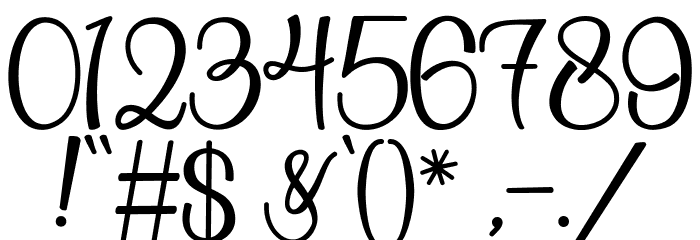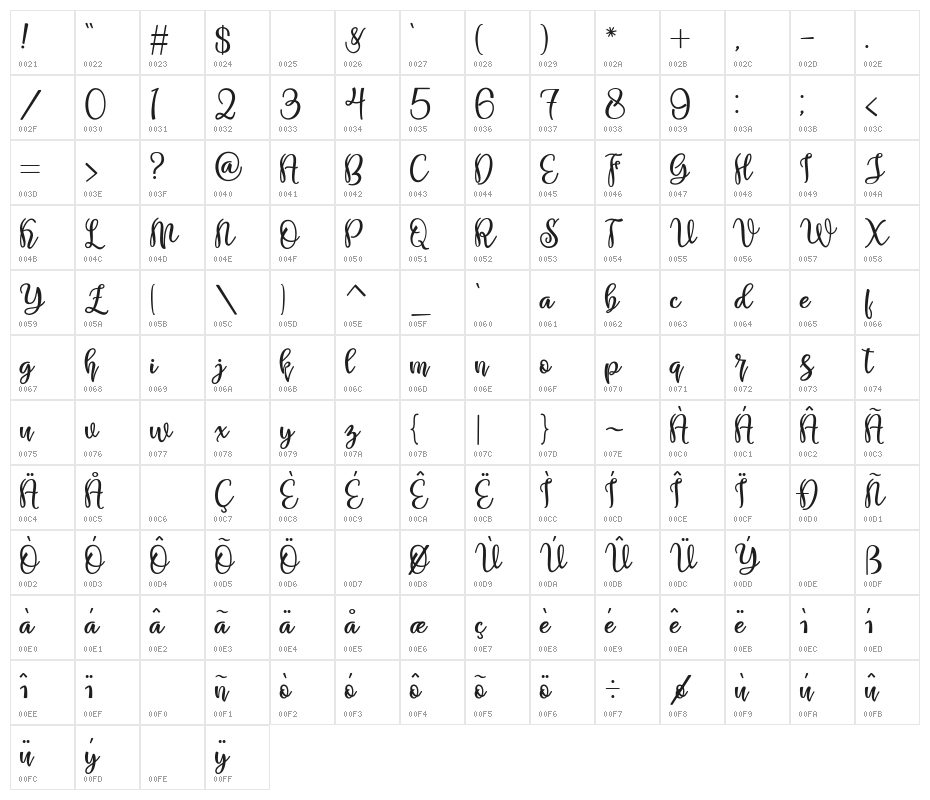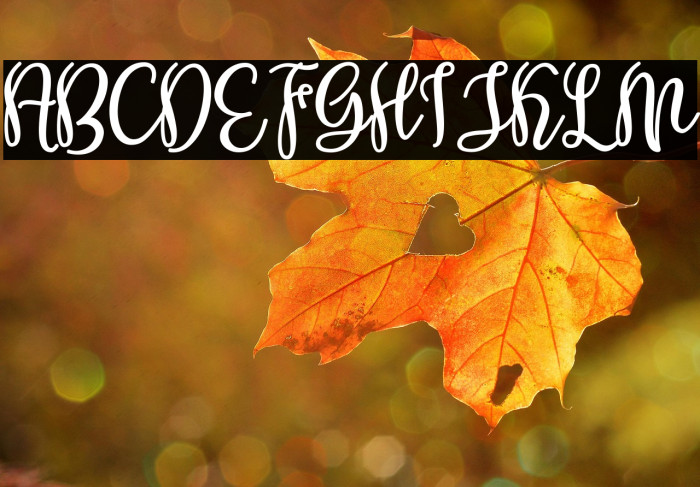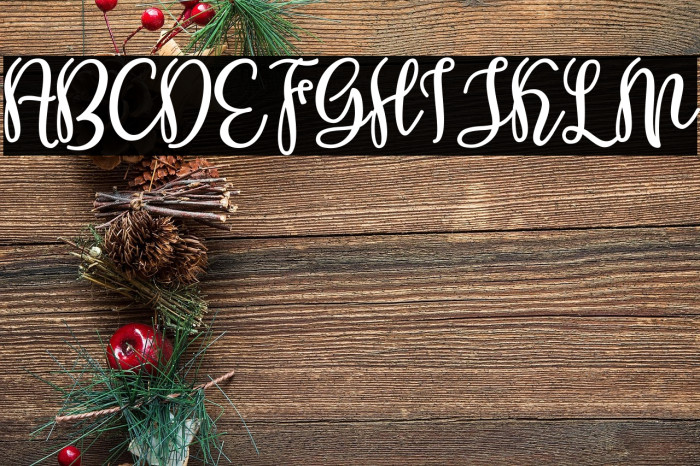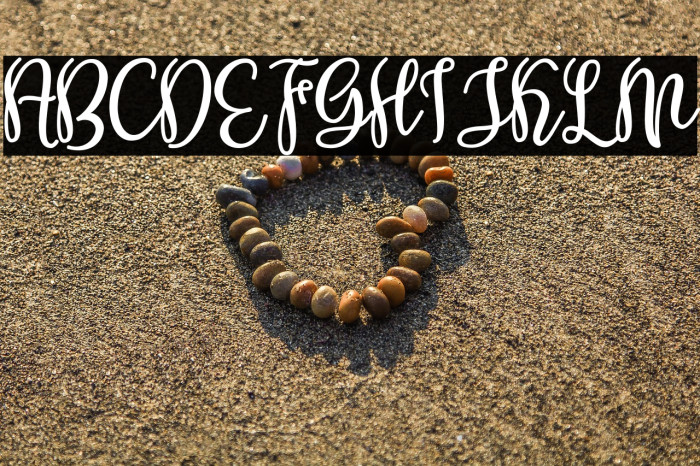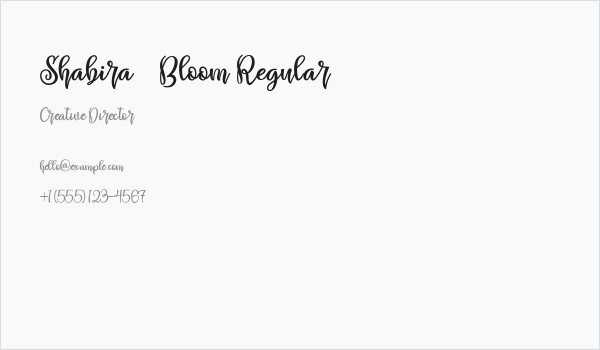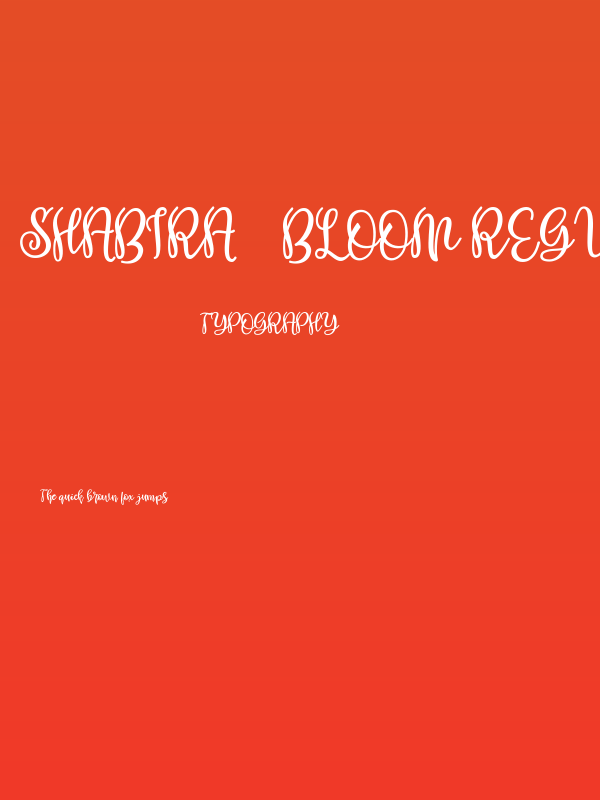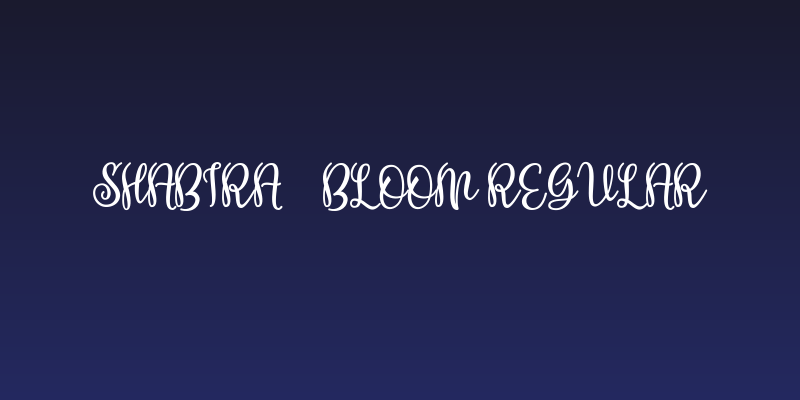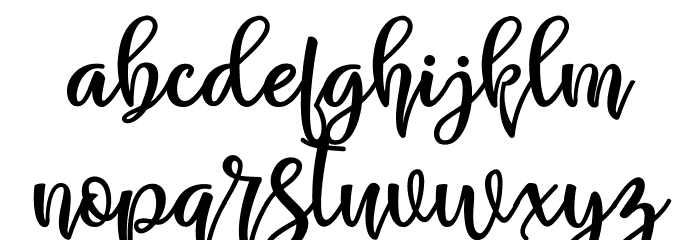
Shabira Bloom Regular Font
Shabira Bloom Regular Description
This font exhibits a playful and elegant script style, characterized by its flowing, cursive letters that connect seamlessly. The uppercase letters are bold and prominent, while the lowercase letters maintain a consistent fluidity, enhancing readability. The numerals are distinct and maintain the same cursive style, ensuring uniformity across all characters. Special characters are creatively integrated, adding a whimsical touch. The overall design is both modern and timeless, making it versatile for various design needs.